Questions for Font Creators Part 1: What Made You Interested in Typeface Design? 2
In the previous article, we introduced stories related to class in student days in regard to what made our staff interested in typeface design. Apart from that, common keywords appearing in answers from typeface designers were “lettering and drawn lettering.”
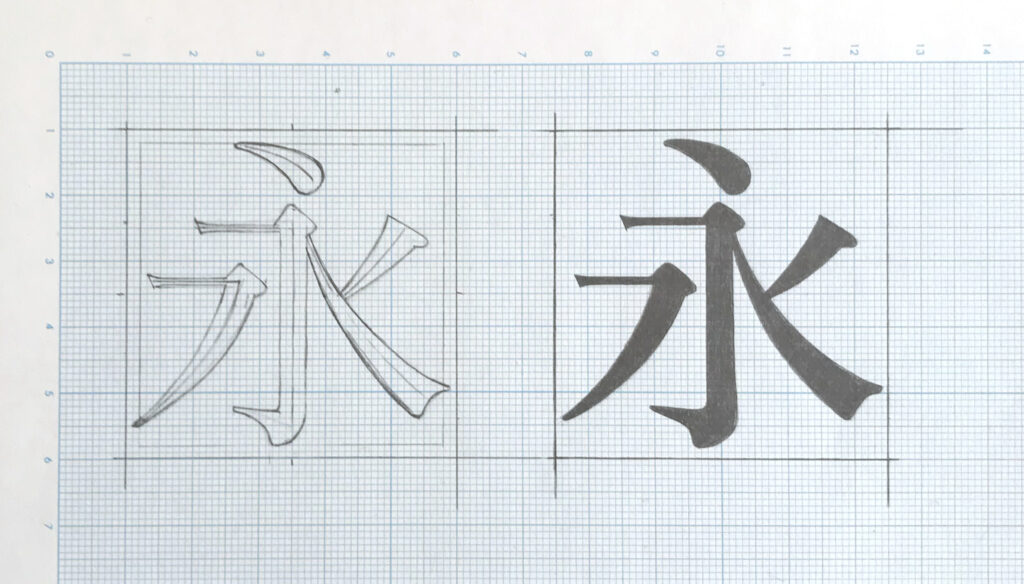
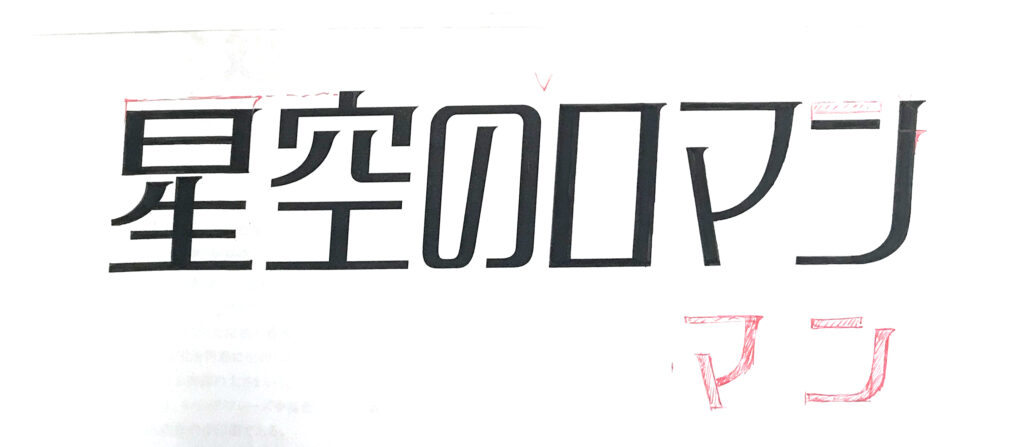
- Drawn lettering (there is no particular trigger, as it is integral). As I liked the drawn lettering of Shigeru Inada, I started to do lettering and that led me to become interested in typeface design.
- When I did lettering for my name, I was impressed by changes in the impression of characters with a difference in one line.
I, too, found out about the existence of typeface design after becoming interested in the shape of characters. It may not be uncommon for one to choose a path to typeface design as an extension of interest in hand-written characters.
From the answers from engineers, some of them became interested in typeface design through a different genre connected to typeface design, such as through their careers in the past, rendering in computers, etc.
- Because I was a writer, I was interested in characters as locations where my written words are established.
- It was around the time of the announcement of Windows Vista when I was a junior high school student. As this OS was rich in design compared to the previous XP, operation slowed down in the machine specifications distributed. Therefore, reducing file weight often became an issue. I found out about an OS called Ubuntu. The font rendering was beautiful and the extensibility of appearance was also high-level, so I started customizing the OS myself. I found out about a variety of fonts in that process, and I started creating them by myself. Through that, I became interested in typeface creation and design.
Regarding rendering: The font rendering method called ClearType in Windows was extremely rational for low resolution, but I felt the normal gray scale rendering was more beautiful.
Reading answers to the question, I found out that while some people become interested in typeface design through their interests in writing and creating characters themselves, there are people who reach typeface design from interest as users of characters.
Because I have always been interested in typeface design from the beginning as a creator, it is quite difficult for me to take on the perspective of a user. However, I began to feel again that I would like to listen to stories from the users of the typefaces we actually create.